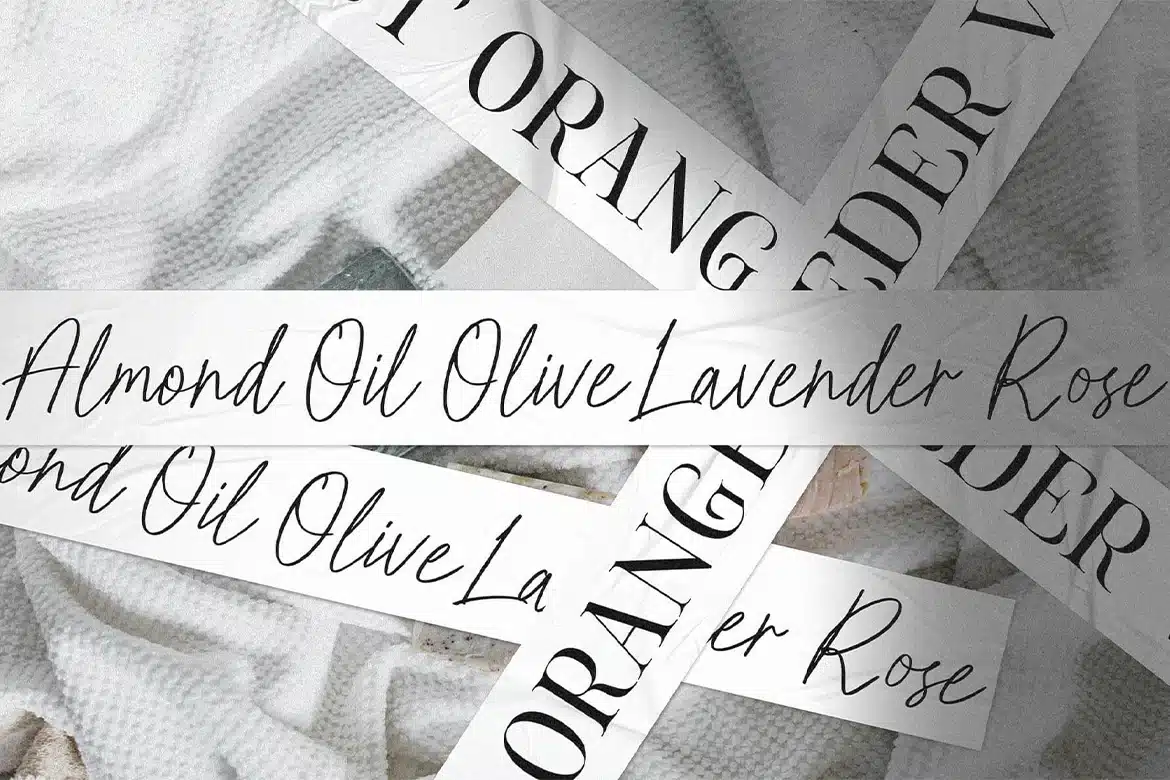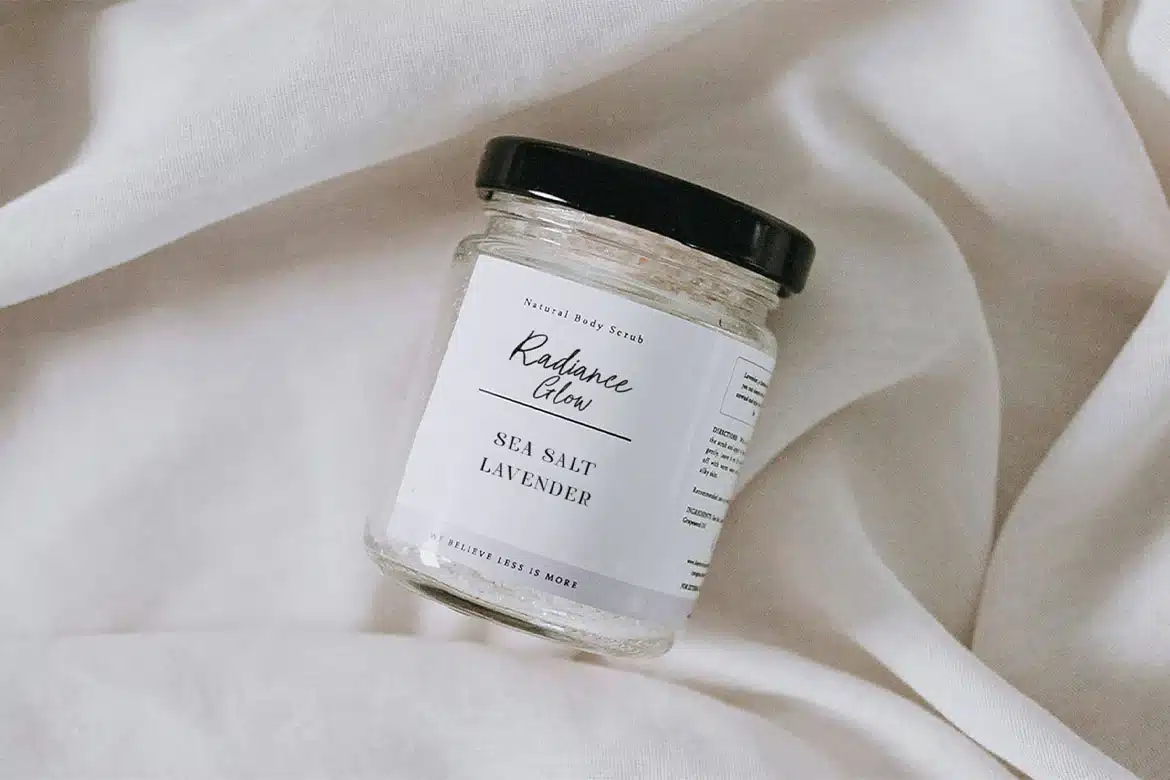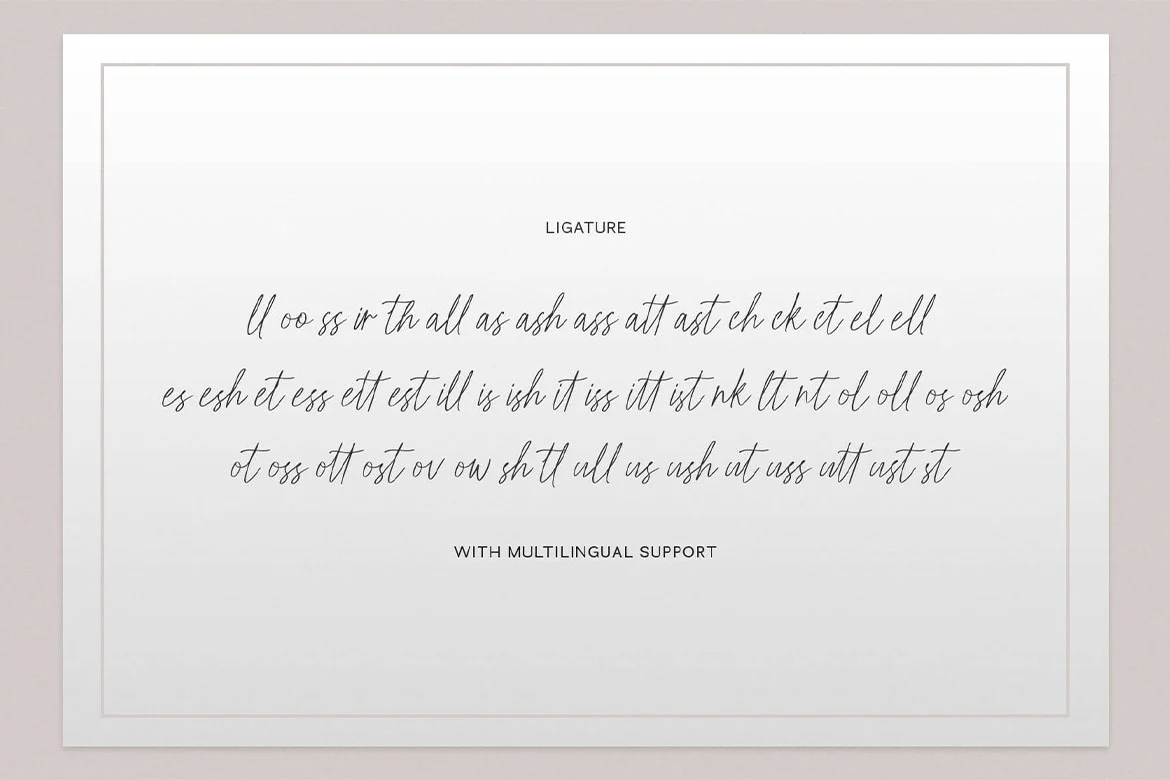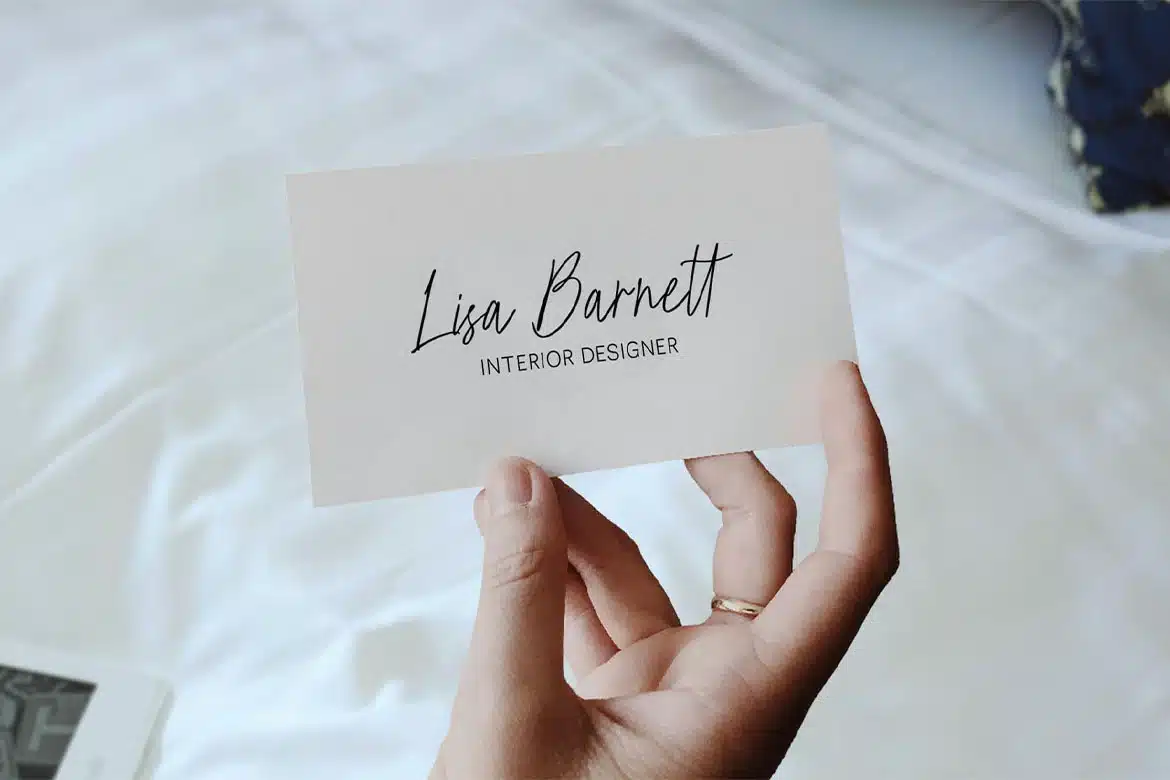
Beauty Hurst – Elegant Signature Font
Capture a truly magnetic essence with Beauty Hurst, an elegant signature script designed to bridge the gap between high-end modern branding and timeless wedding stationery.
Perfectly balancing bold gestures with soft, fluid curves, this typeface injects a confident and trendy energy into your projects. Whether you are a lifestyle creator building a boutique brand or a designer crafting luxurious wedding invitations, Beauty Hurst provides a seamless and highly professional aesthetic.
Engineered for global scalability and flawless execution, every letterform features manual curve refinement. This ensures your typography remains authoritative, technically sound, and beautiful at any size.
Ideal For:
Signature logos, luxury boutique packaging, elegant wedding invitations, social media kits, and emotive visual narratives.
Key Typography Features:
- 261 Glyphs & 53 Custom Ligatures: Carefully crafted to create a natural, fluid calligraphic rhythm and seamless stroke connections.
- PUA Encoded Characters: Fully accessible without the need for additional, complex design software.
- Multilingual Support: Supports 66 languages (including English, French, German, Spanish, and more) for global client projects.